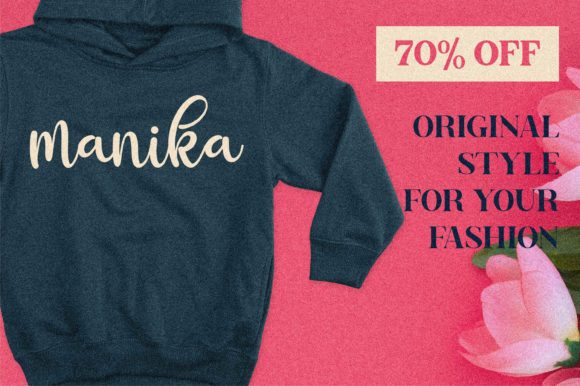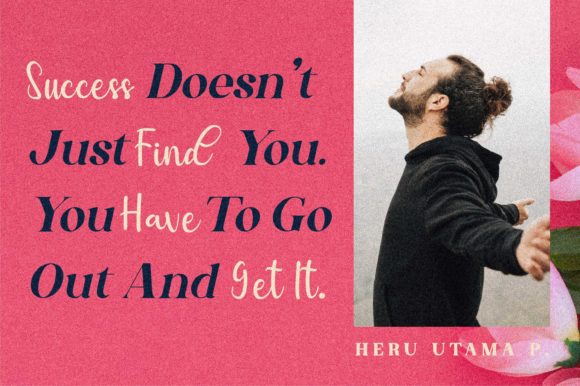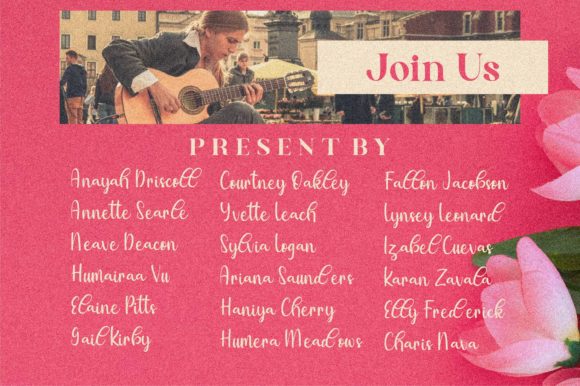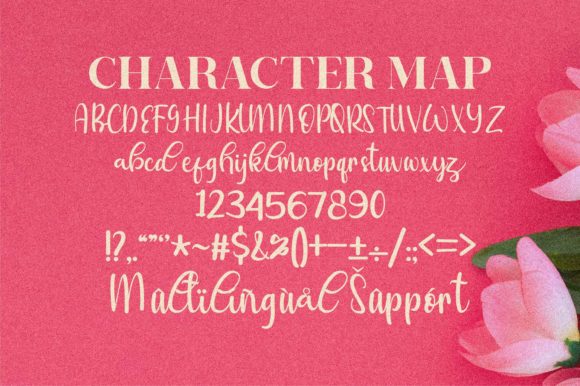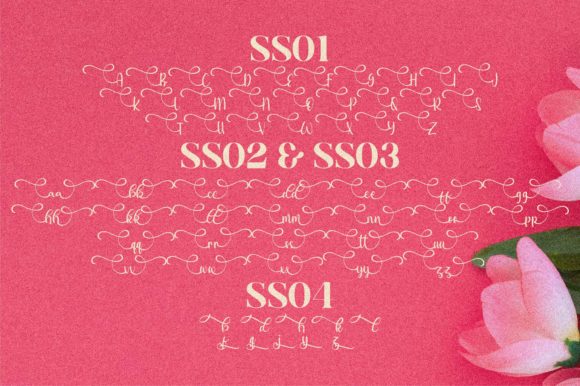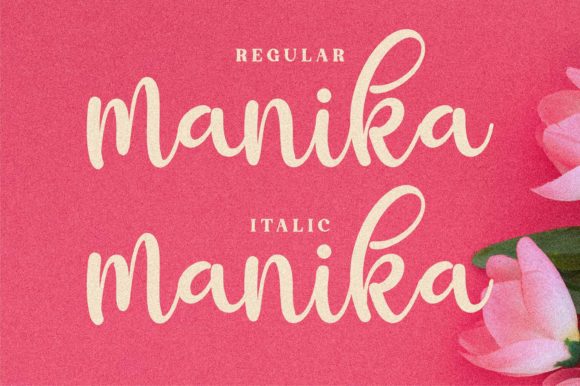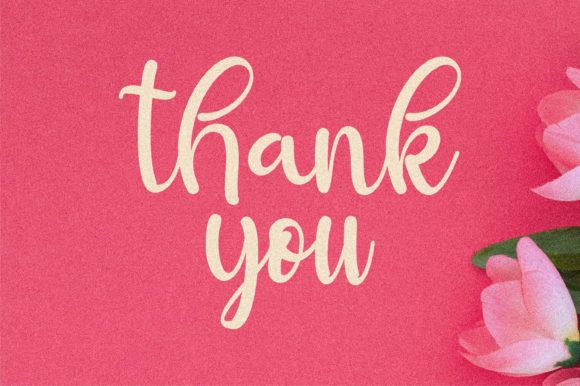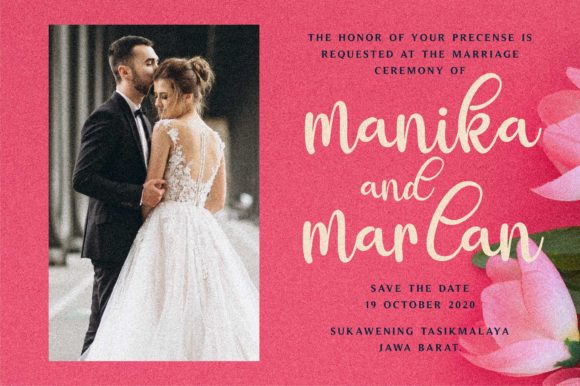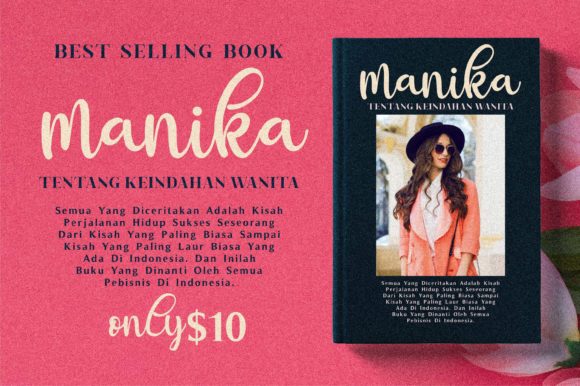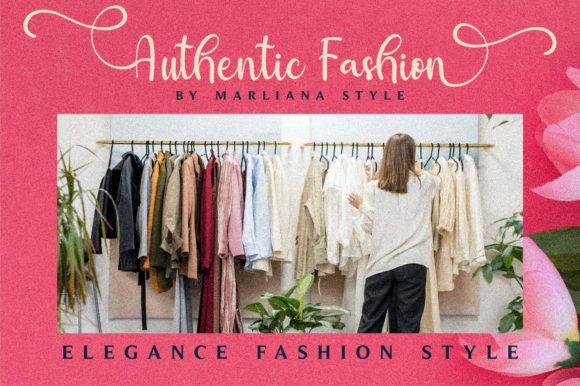
About Manika Font
Introducing Manika, a fun and friendly handwritten font that will bring a delightful touch to your projects. With its playful and inviting character, Manika is designed to add a charming and lighthearted vibe to your designs.
Whether you’re working on logos, branding materials, invitations, cards, social media posts, or any other creative endeavor, Manika will elevate your projects to new heights. Its unique and expressive letterforms exude a sense of joy and personality, making it perfect for designs that aim to capture attention and create a positive impression.
Manika’s versatility allows it to adapt to various design styles and contexts. From whimsical and childlike themes to cheerful and vibrant aesthetics, this font can enhance a wide range of projects. Its friendly appearance is well-suited for anything from children’s books to playful brand identities, bringing a sense of warmth and approachability to your designs.
With the PUA encoding feature, accessing all the glyphs and swashes of Manika is a breeze. This means you can easily add decorative elements, alternate characters, and swashes to customize and embellish your designs. Let your creativity run wild as you experiment with different combinations and create unique and eye-catching visuals.
The friendly and approachable nature of Manika makes it an ideal choice for projects that aim to evoke positivity and create a connection with the audience. Its playful curves and whimsical details will instantly bring a smile to people’s faces and leave a lasting impression.
Whether you’re designing social media graphics, greeting cards, or personal stationery, Manika will infuse your creations with a sense of fun and liveliness. Its handwritten feel adds a personal touch and creates a warm and intimate connection with your audience.
Fall in love with Manika and let it take your projects to new heights. Its fun and friendly nature will bring a touch of joy and playfulness to your designs, making them truly stand out. Explore the vast possibilities offered by the PUA encoding and unleash your creativity with ease. Get ready to create projects that leave a lasting impression and bring smiles to everyone who sees them.